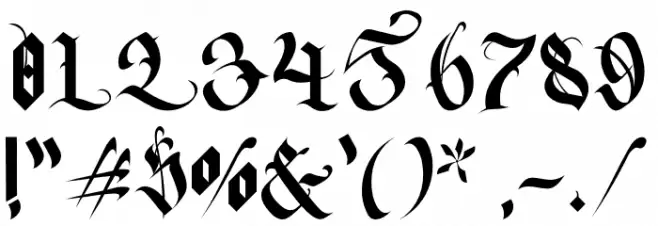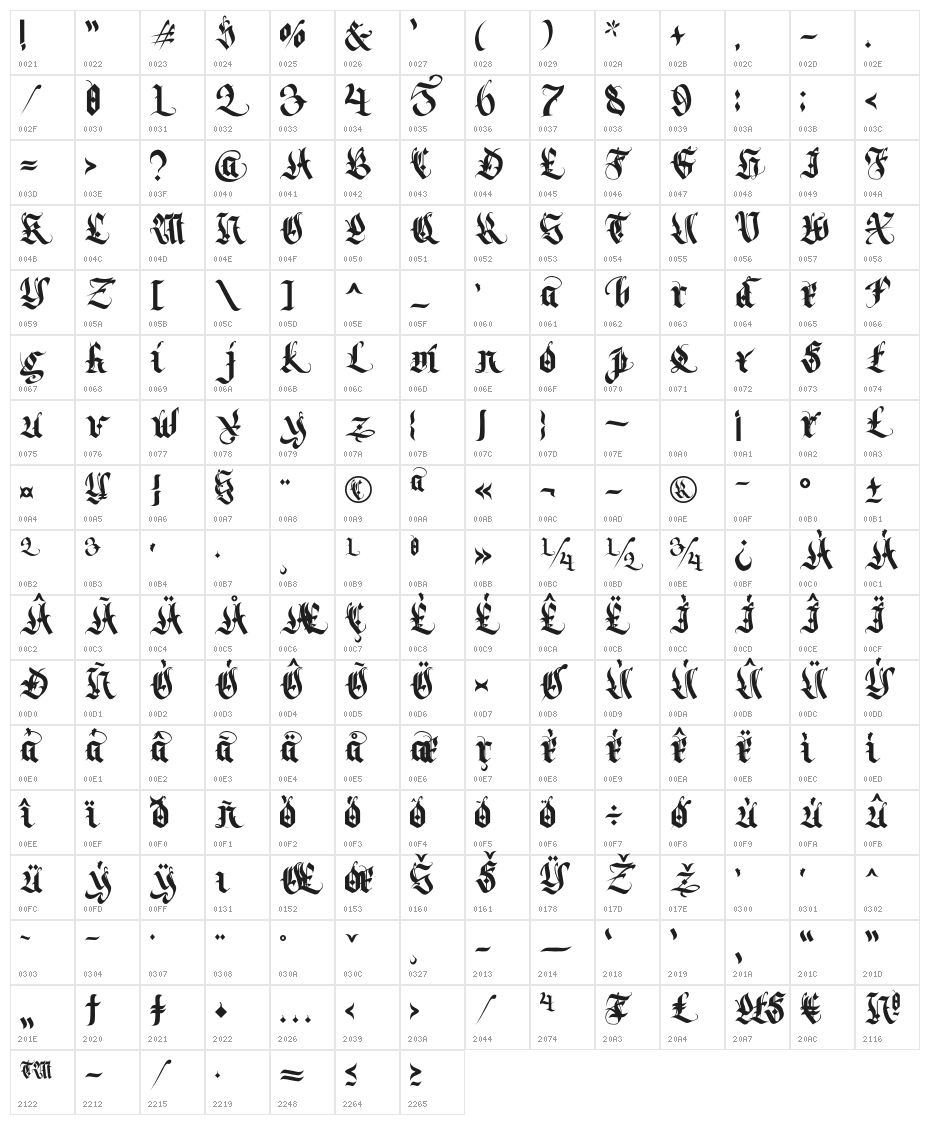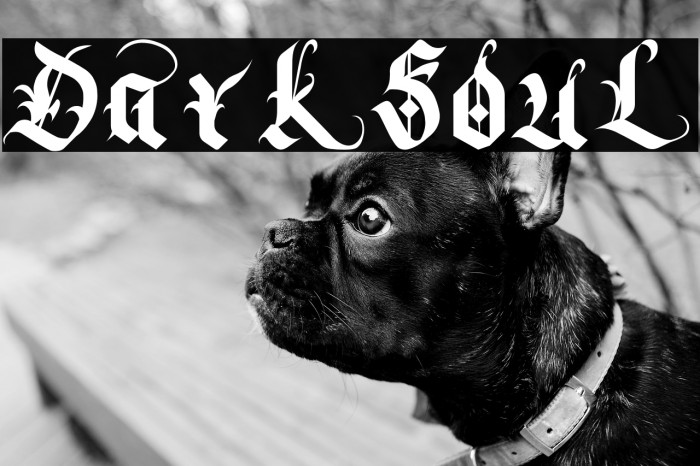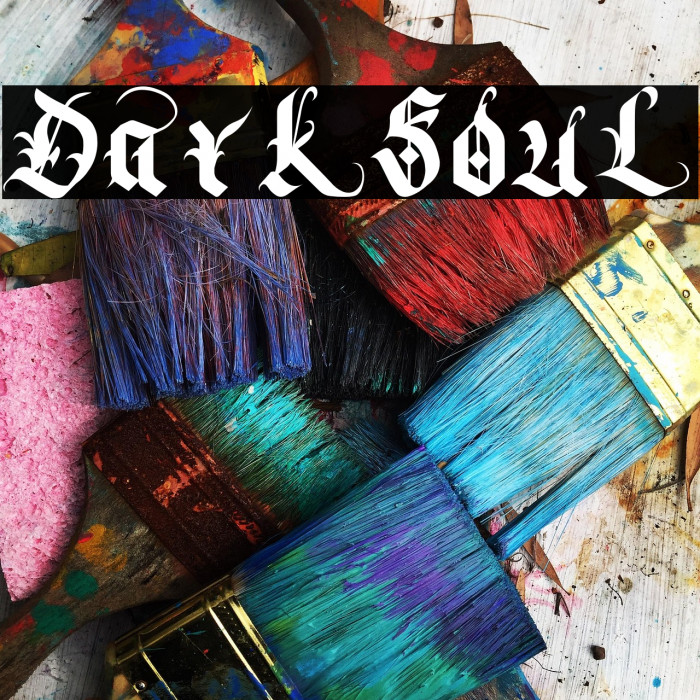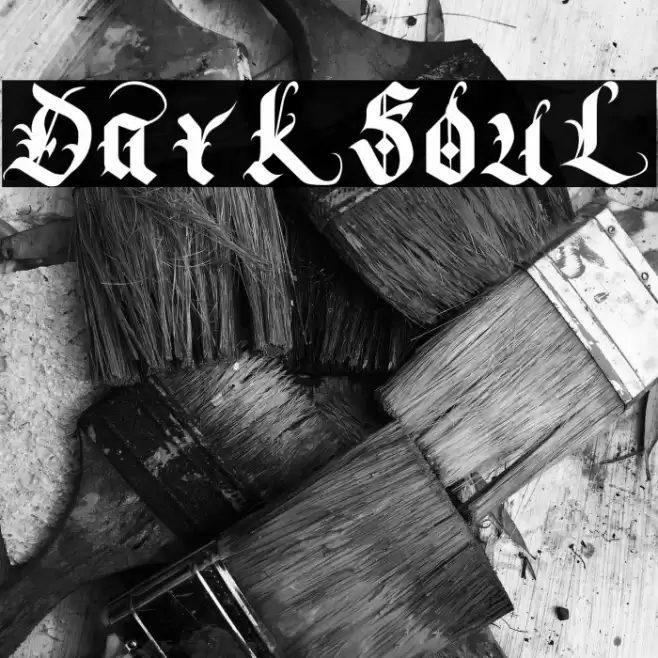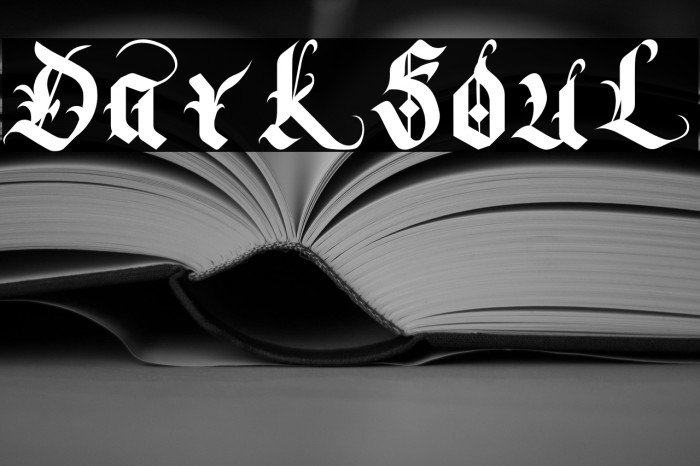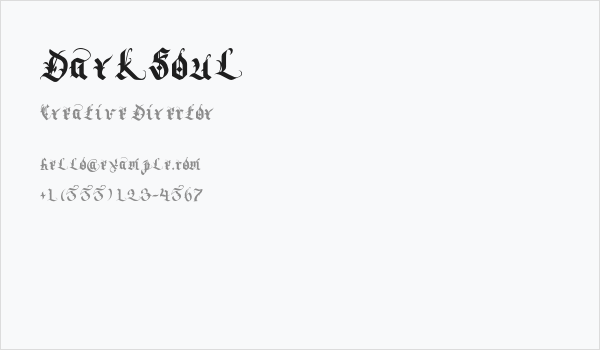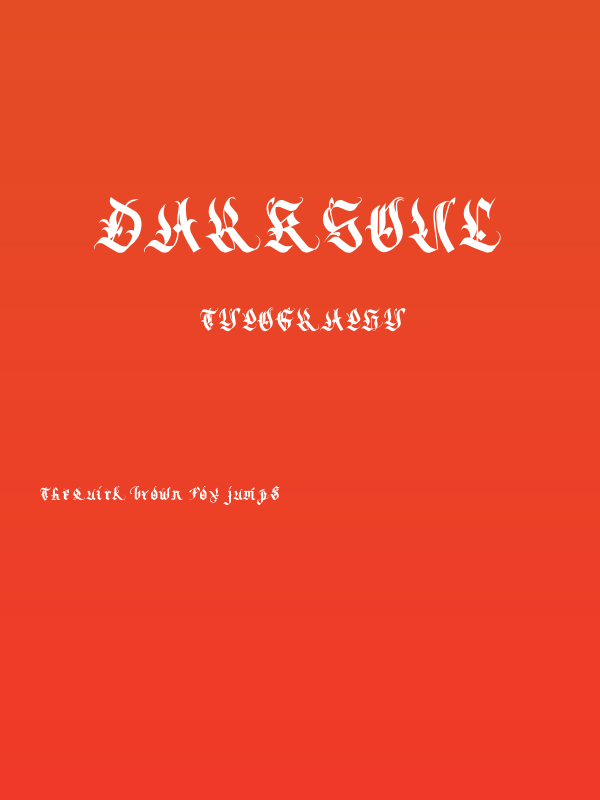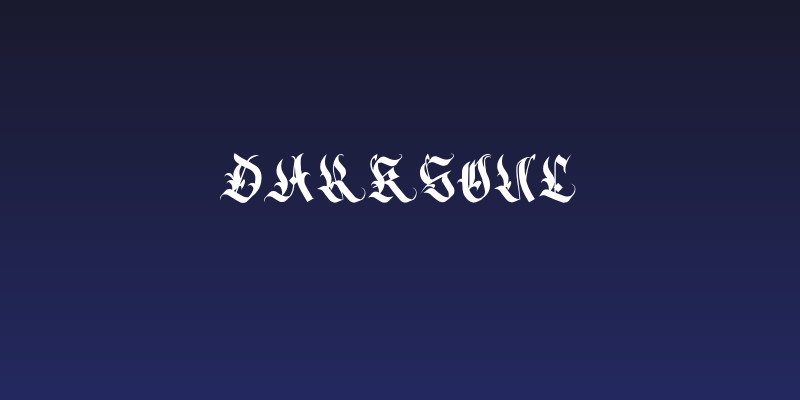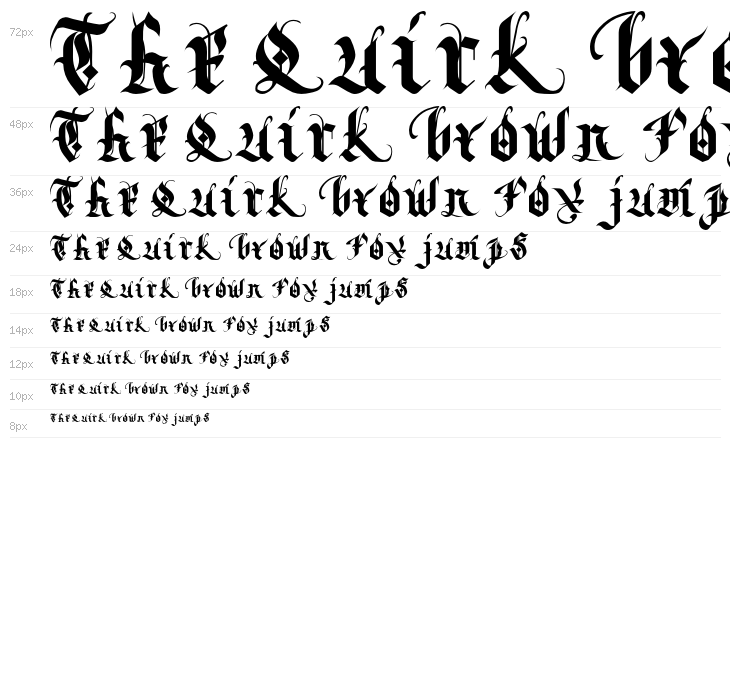
Darksoul Font
Darksoul Description
This font exudes a gothic and medieval flair, characterized by its intricate and ornate letterforms. The uppercase and lowercase letters are embellished with sharp serifs and elaborate flourishes, giving it a dramatic and historical appearance. The numerals and special characters maintain the same decorative style, ensuring consistency throughout. The strokes are bold and pronounced, with a high contrast between thick and thin lines, enhancing its visual impact. This font is ideal for projects that require a touch of elegance and antiquity, such as themed events, historical publications, or fantasy designs.
| Proposed Projects | Ideal for themed events, historical publications, fantasy designs, and decorative headings. |